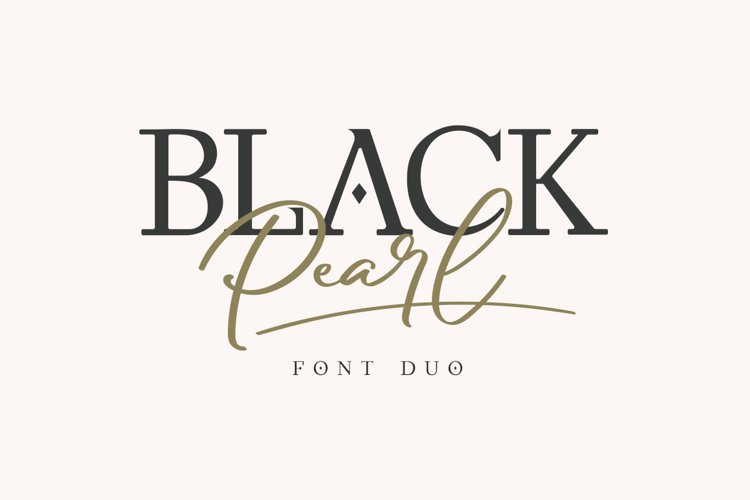
Black Pearl Font Duo
Introducing Black Pearl, a stunning font duo that combines a bold, elegant serif with a flowing script to create a powerful and versatile typeface. This unique combination brings sophistication and style to your design projects, effortlessly blending classic and modern elements. Ideal for projects that require a luxurious, high-end aesthetic, Black Pearl is perfect for branding, logo creation, packaging, and more.
• Luxury Branding: Create a high-end brand identity with this font duo that exudes elegance and sophistication.
• Logos & Signatures: The pairing of serif and script makes it ideal for distinctive logo designs and signature-style graphics.
• Wedding and Event Invitations: Add a touch of romance and refinement to invitations, save-the-dates, and stationery.
• Product Packaging: Great for cosmetics, jewelry, and fashion packaging that requires a polished, upscale look.
• Social Media Graphics: Perfect for creating stylish posts, promotional materials, and elegant overlays.
• Elegant Serif and Script Pairing: Combines a bold serif with a graceful script, providing balance and flexibility.
• Versatile Usage: Suitable for both print and digital media, allowing seamless application across various platforms.
• High Readability: Designed for clarity and style, making your text both eye-catching and easy to read.
Elevate your designs with Black Pearl—a sophisticated font duo that merges modern flair with timeless elegance. Perfect for any project that demands a luxurious touch, this typeface will help your work stand out and leave a lasting impression.